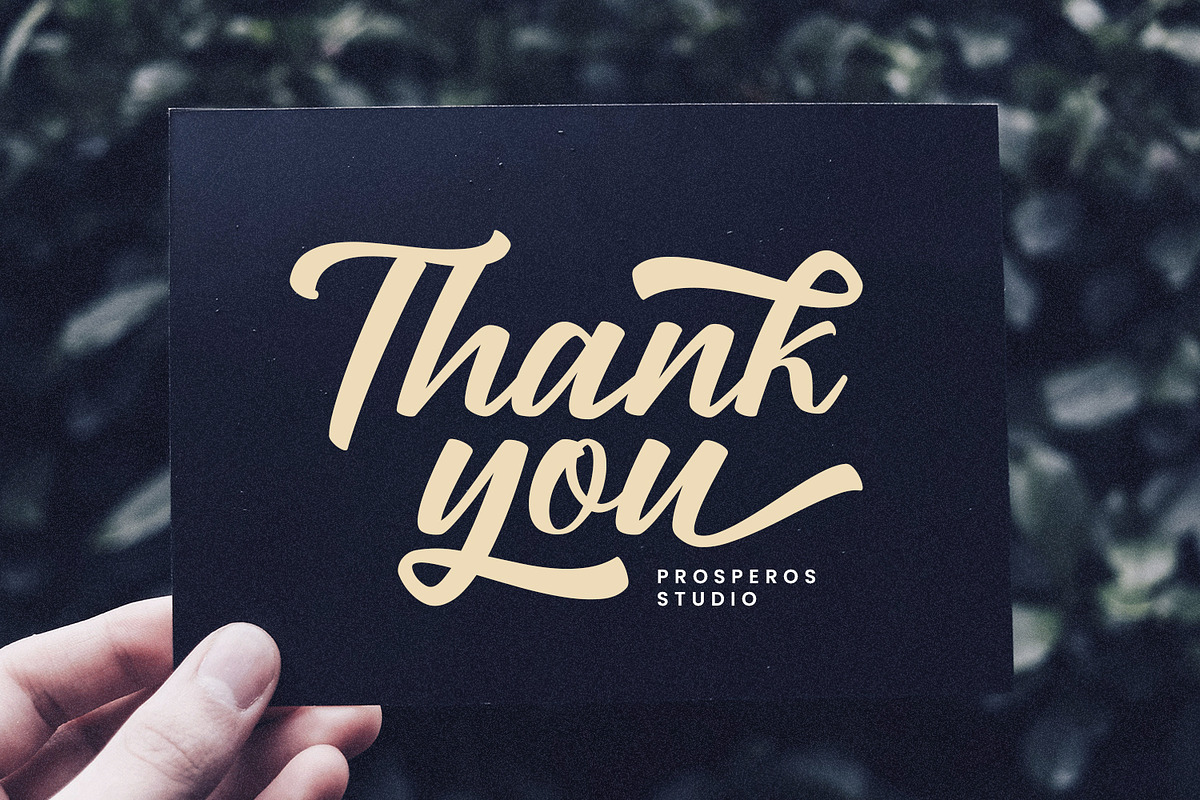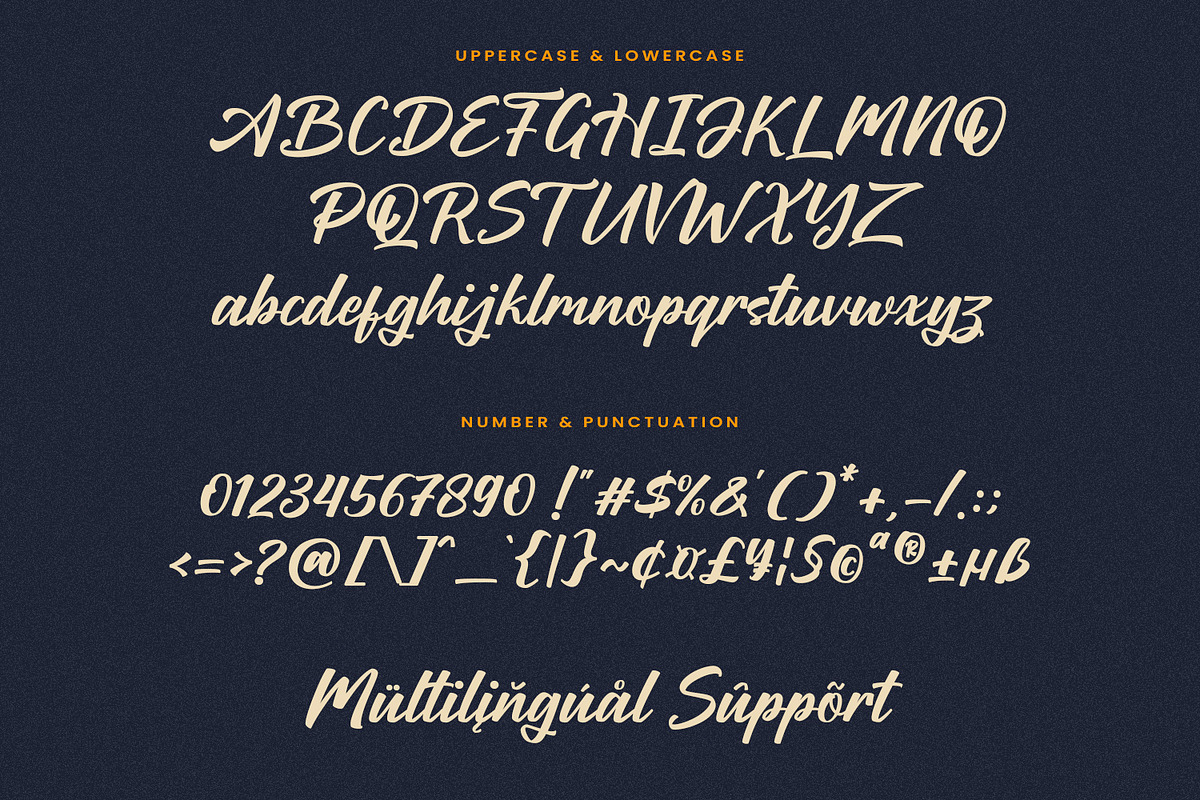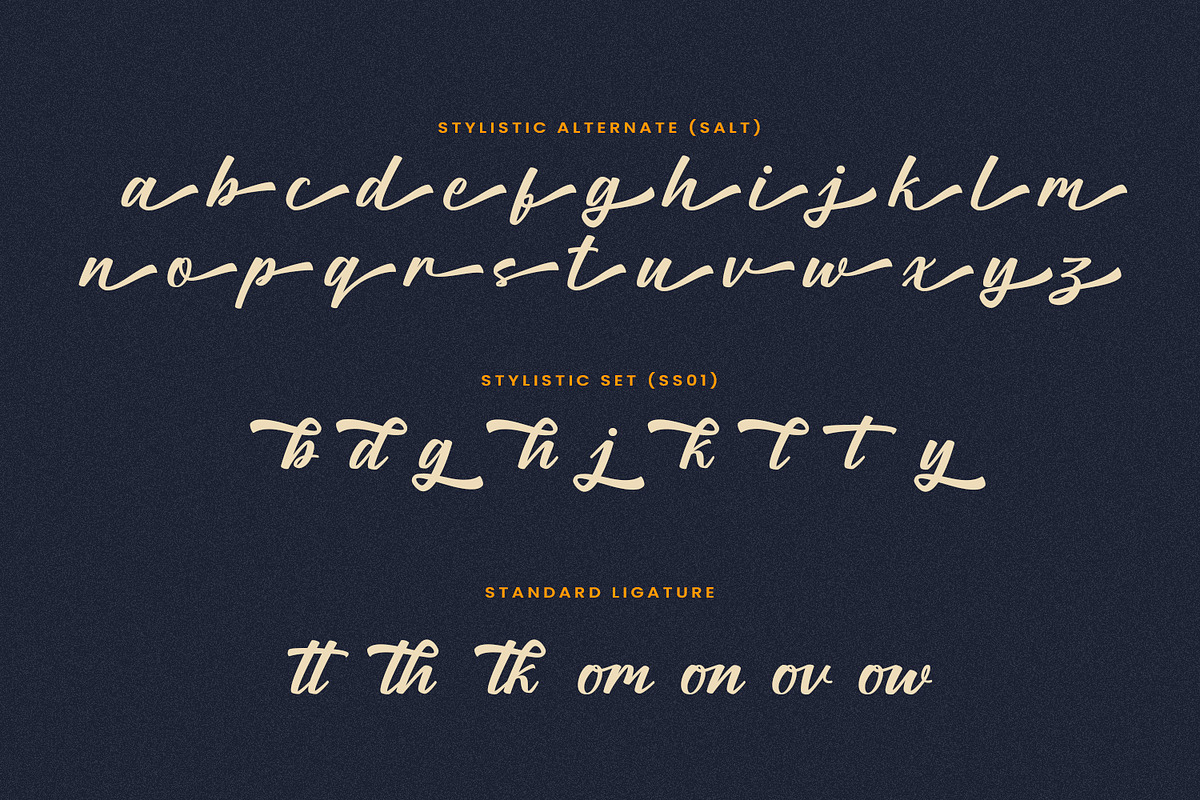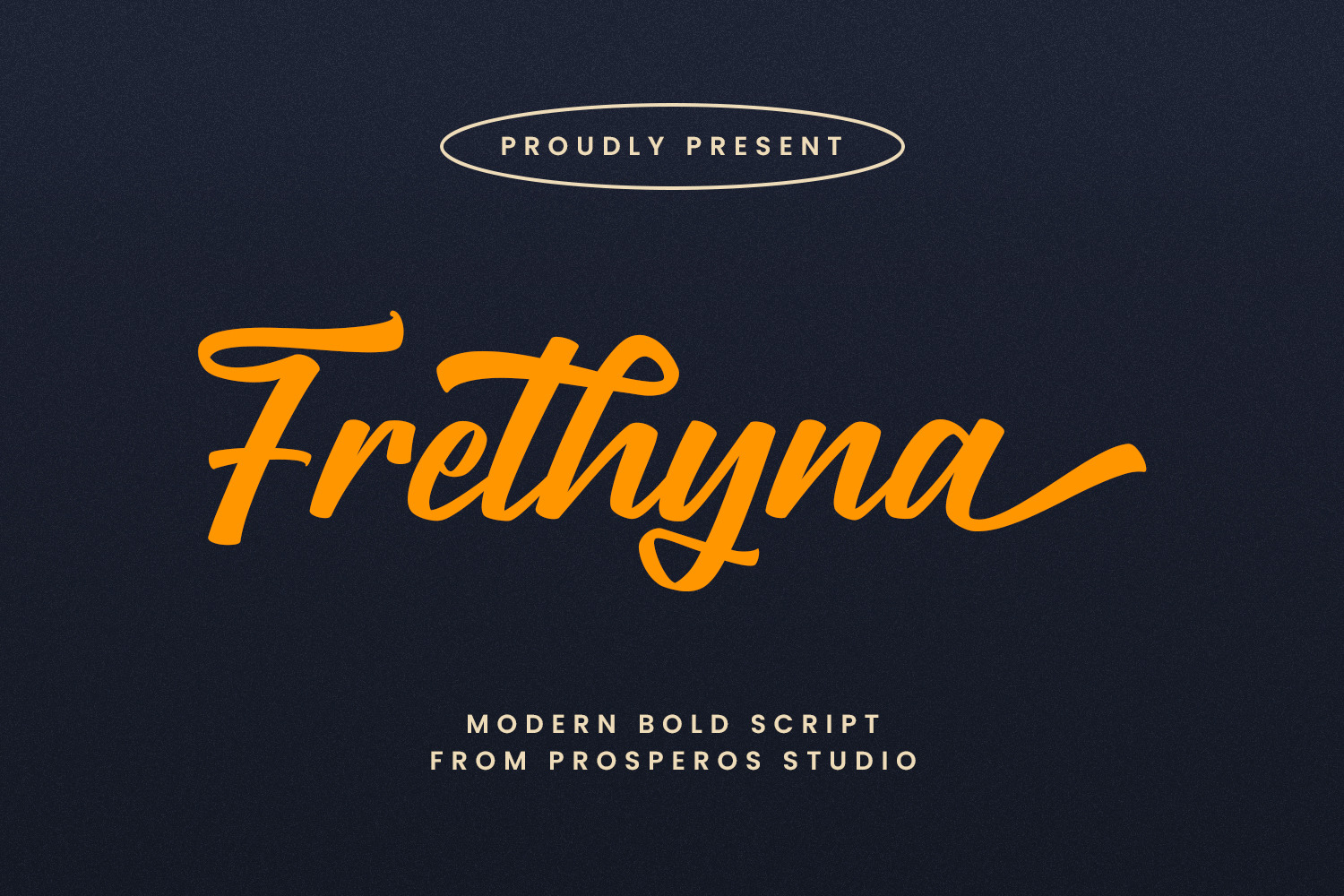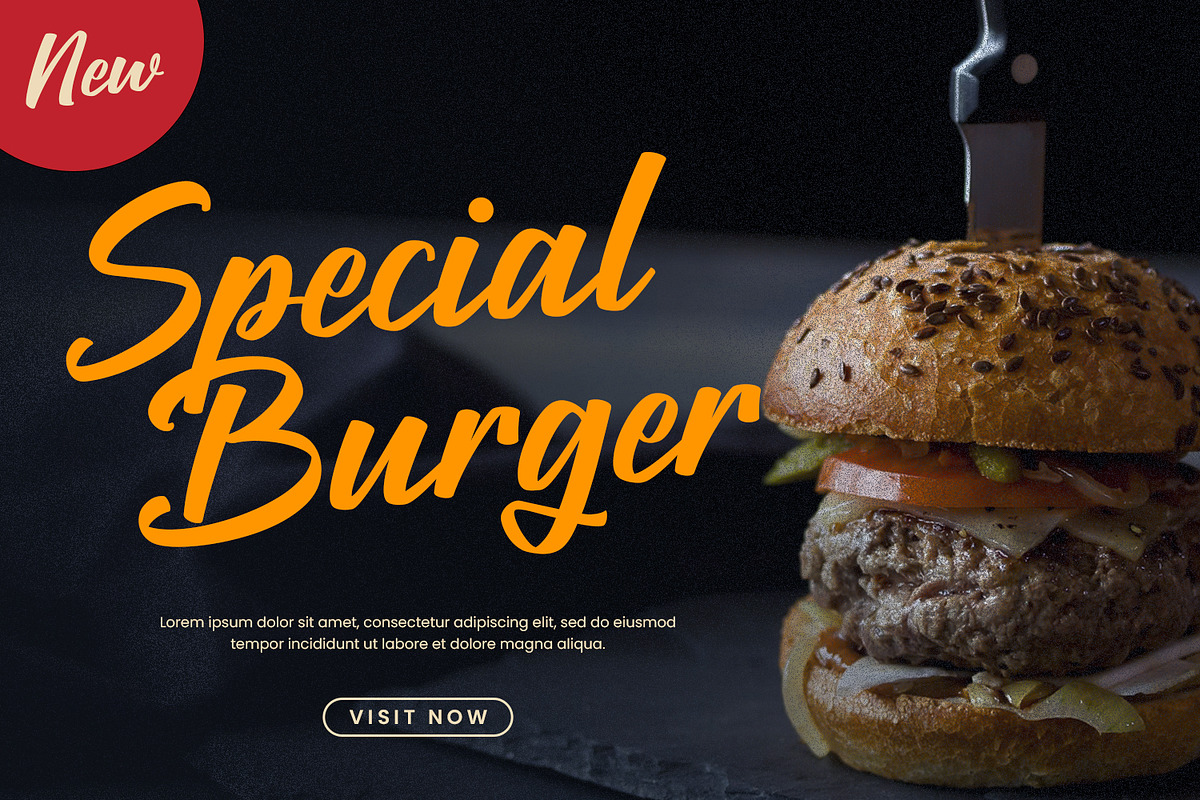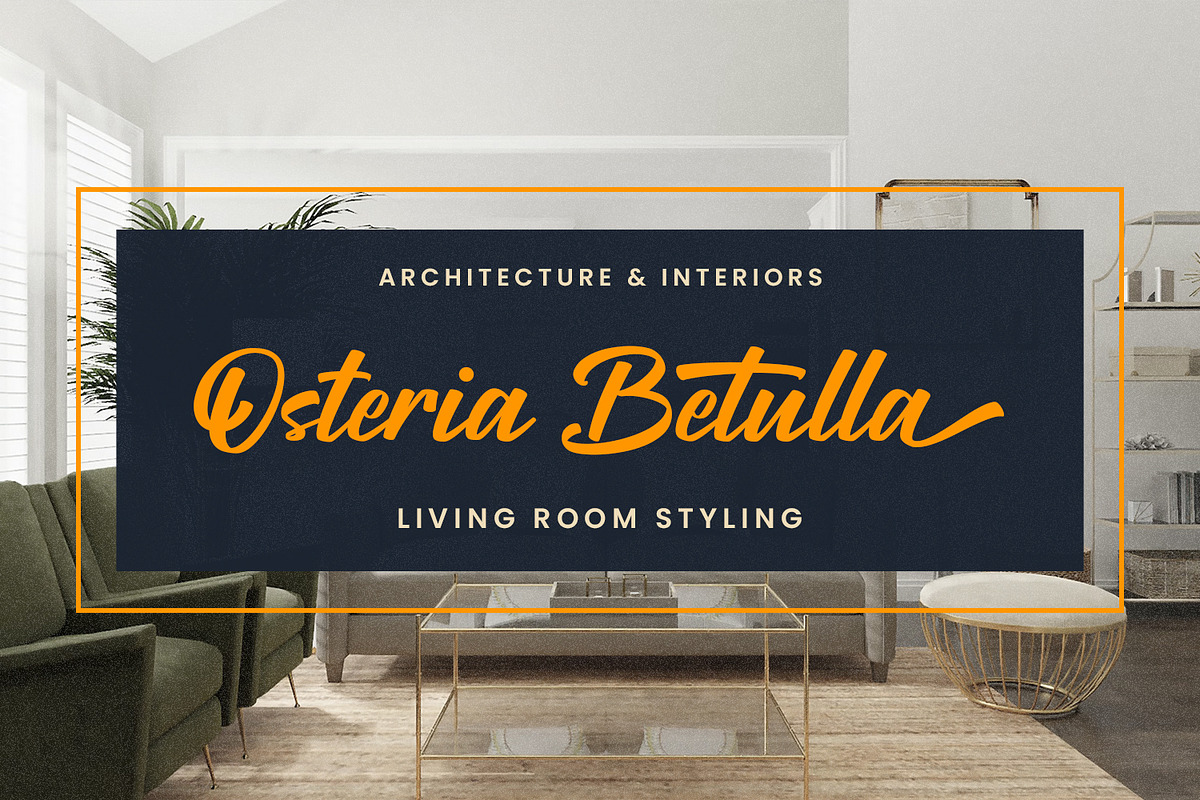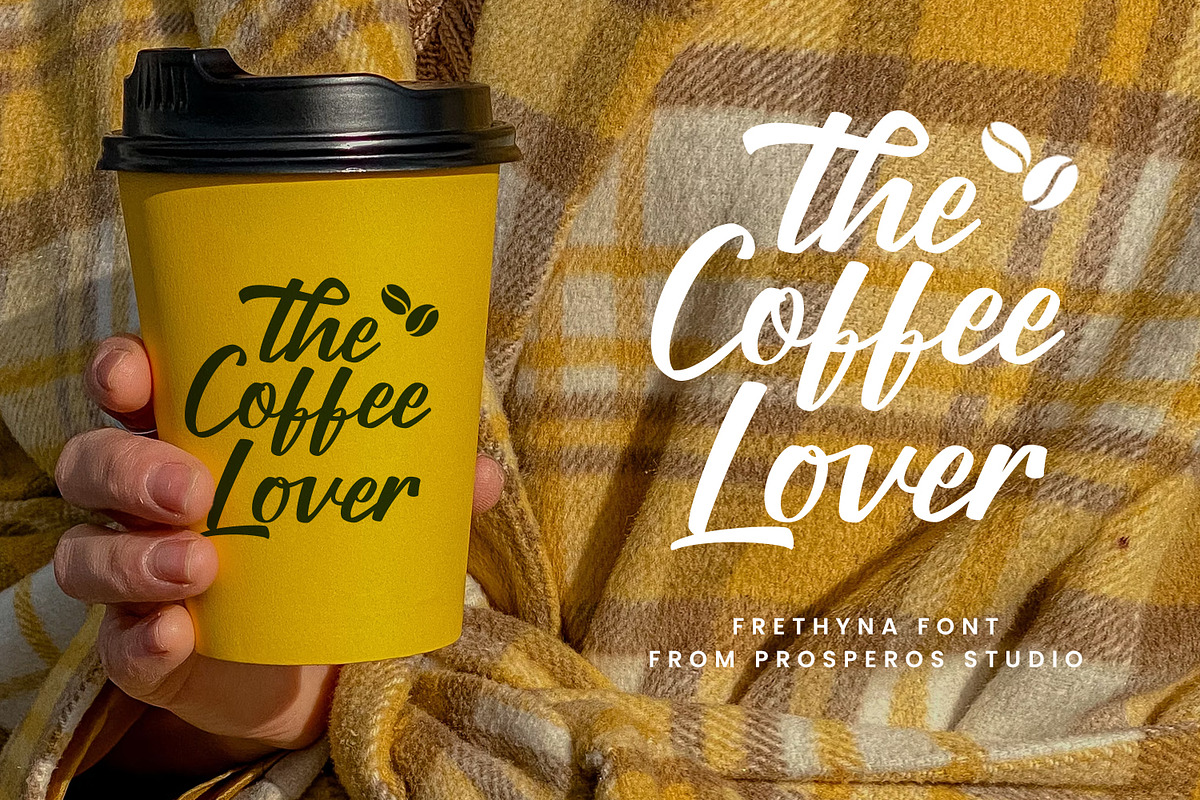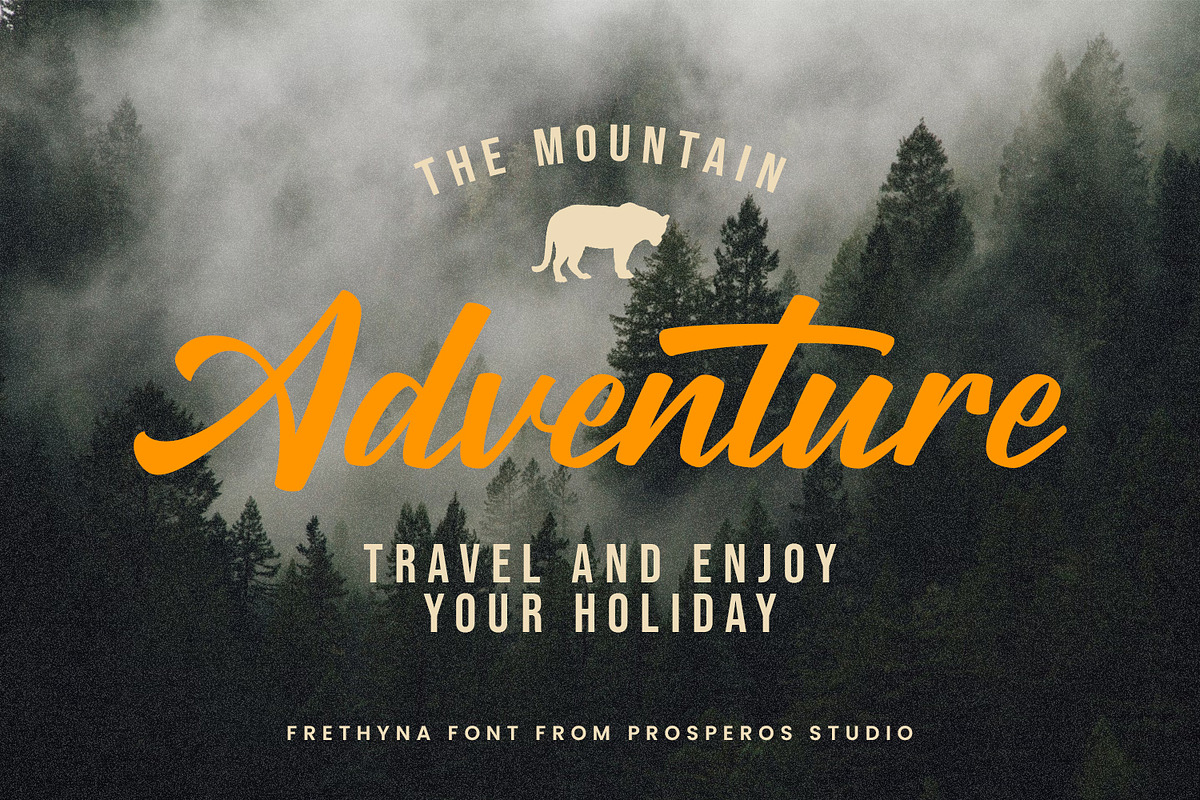
Frethyna - Script Font
Frethyna - Script Font is a font with a clear style and good flow This font is great for your next creative project such as Logotype, printed quotes, invitations, cards, product packaging, headers, Letterhead, Poster, Apparel Design, Label, and etc.
- Number, Symbols, and Punctuation
- Alternate and Ligature